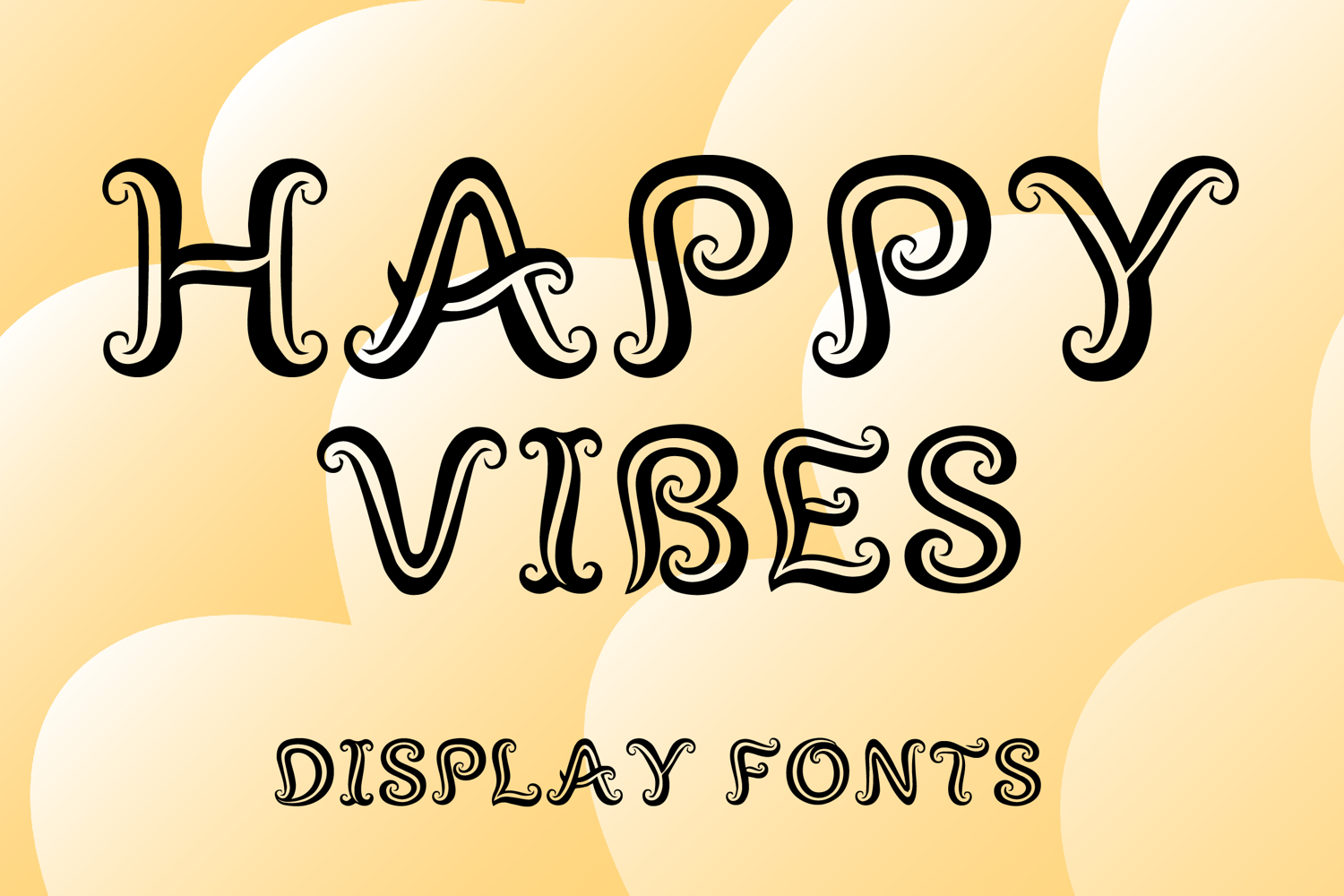
HAPPY VIBES
HAPPYVIBES-Regular
HAPPY VIBES is a whimsical decorative display font with a playful retro-inspired style and artistic handcrafted charm. Its uppercase letterforms feature bold curving strokes, elegant spiral swashes, and expressive ornamental details that create a fun, lively, and eye-catching look. Designed with uppercase letters A–Z and numbers 0–9, HAPPY VIBES is perfect for branding, posters, packaging, invitations, logos, social media graphics, and creative projects that need a joyful and memorable statement.